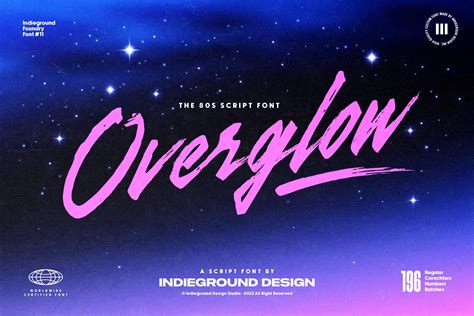
Transform Your Designs with Free 80s Cursive Fonts: Unleash the Creative Power of Retro Calligraphy
Are you tired of the same old boring fonts on your designs? Do you want to unleash your creative power and add a retro touch to your work? Look no further than free 80s cursive fonts!
With the popularity of throwback designs, retro calligraphy has become increasingly in demand. These free 80s cursive fonts embody the nostalgia and funk of the era, adding a bold statement to any project.
Using these fonts can transform your designs from plain and unremarkable to eye-catching and unique. Whether it's for a poster, logo, or social media graphic, incorporating these fonts can give your work an edge above the rest.
So why settle for basic when you can elevate your designs with the powerful allure of retro calligraphy? Incorporating free 80s cursive fonts into your work will add a touch of nostalgic charm and make your creations stand out.
Don't let your designs get lost in a sea of mediocrity - embrace the power of free 80s cursive fonts and take your work to the next level.
Transform Your Designs with Free 80s Cursive Fonts
Are you looking for a way to add creativity and style to your design projects? Look no further than free 80s cursive fonts! These retro calligraphy fonts transport you back in time to the era of neon colors, big hair, and bold fashion statements. By incorporating these fonts into your designs, you can tap into that same creative energy and unleash your inner artist.What are 80s cursive fonts?
Before we dive into the world of 80s cursive fonts, let's define what we mean by the term. Cursive fonts are those that mimic the look of handwriting, with connected letters and flowing strokes. In the 1980s, cursive fonts took on a particular flavor, characterized by bold, exaggerated strokes and curves that often resembled graffiti or street art. These fonts were popular in advertising, album covers, and other artistic media.Why use 80s cursive fonts?
So why bother with an outdated font style from a bygone era? There are actually several compelling reasons to incorporate 80s cursive fonts into your designs. For one, they offer a unique and eye-catching aesthetic that sets your work apart from the crowd. These fonts also tap into a sense of nostalgia and whimsy that many people find appealing. And because they're free to download and use, there's no harm in trying them out and seeing if they work for your project.Where can you find free 80s cursive fonts?
Now that you've found some great free 80s cursive fonts to work with, how do you actually incorporate them into your designs? Here are a few tips to help you get started:- Choose the right font for your project: Not all 80s cursive fonts are created equal, so take the time to browse through several options and find one that fits the tone and style of your design.- Pair with complementary fonts: To create a dynamic and visually appealing layout, consider pairing your cursive font with a complementary sans serif or serif font for contrast.- Experiment with different sizes and weights: Don't be afraid to play around with the size and weight of your selected font to achieve the desired effect. Bold strokes can be used for emphasis, while thinner lines can communicate elegance or sophistication.- Use color and texture: To really make your 80s cursive font pop, experiment with adding color or texture to it, such as a gradient fill or distressed texture overlay.Compare and contrast different 80s cursive fonts
To give you a sense of the range of 80s cursive fonts available, let's compare and contrast a few different options:- Pacifico: This font features bold lines and an almost cartoonish look. It's a great choice for playful designs like event invitations or kids' products.- League Script: League Script is a more refined cursive font, with elegant loops and curves that feel sophisticated and modern.- Shink: This striking font has a calligraphic feel, with intricate swirls and embellishments that make it stand out.The bottom line: 80s cursive fonts are a fun and versatile design tool
In conclusion, don't underestimate the power of 80s cursive fonts to add some flair to your design projects. Whether you're creating a logo, poster, or social media graphic, these fonts can help you tap into a lively and creative energy that's sure to catch the eye of your audience. Give them a try and see what kind of retro magic you can conjure up!Thank you for taking the time to explore the world of 80s cursive fonts with us! We hope that this blog post has inspired you to experiment with these retro calligraphy designs and unleash your creative power. Don't hesitate to try out different styles, colors, and layouts to make your designs stand out. Remember, when it comes to graphic design, the possibilities are endless. Stay tuned for more inspiring articles that will help you take your design game to the next level!People Also Ask About Transform Your Designs with Free 80s Cursive Fonts: Unleash the Creative Power of Retro Calligraphy:
80s cursive fonts can be great for a variety of projects, including posters, flyers, invitations, social media graphics, and more. They can add a fun and playful element to your designs, and can help you create a unique and memorable look and feel.